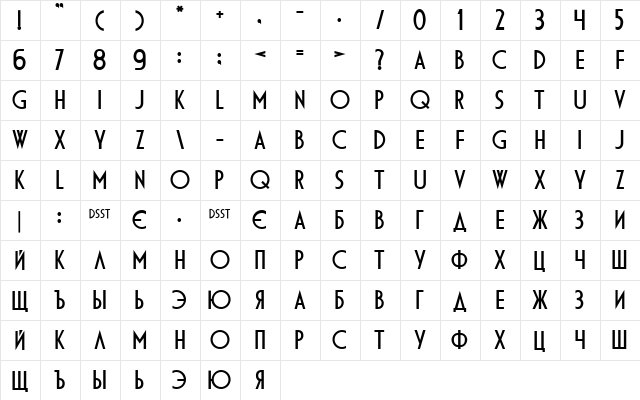
DS Diploma Normal
| Foundry | DSST |
| Designer | Dubina Nikolay |
Design Context for DS Diploma Typeface
DS Diploma takes a measured approach to typography — its balanced proportions and neutral character make it a reliable workhorse for both digital and print work.